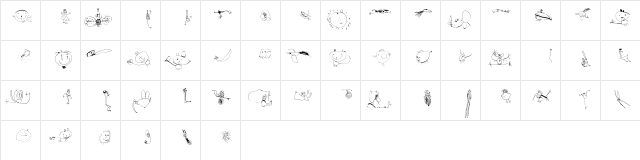
Julidoodles_3yrs_big Regular
Design Context for Julidoodles_3yrs_big Typeface
Julidoodles_3yrs_big is a composed and adaptable typeface that performs quietly and consistently across a wide range of design contexts.